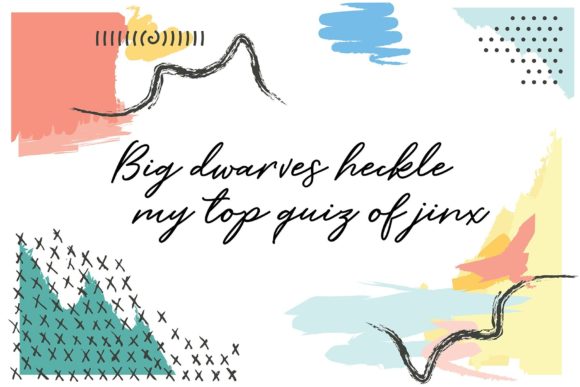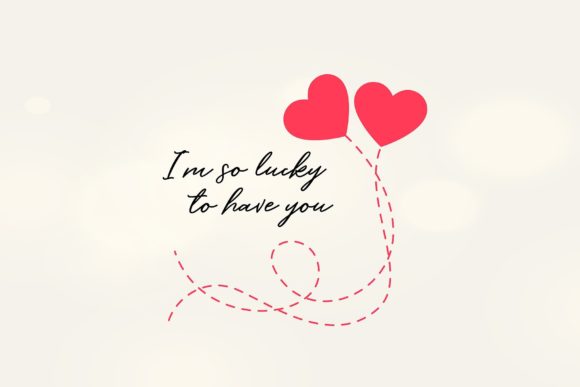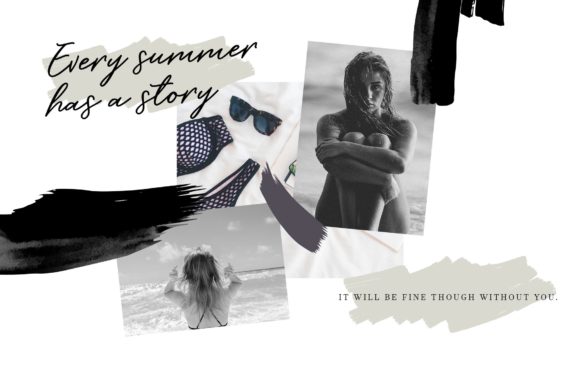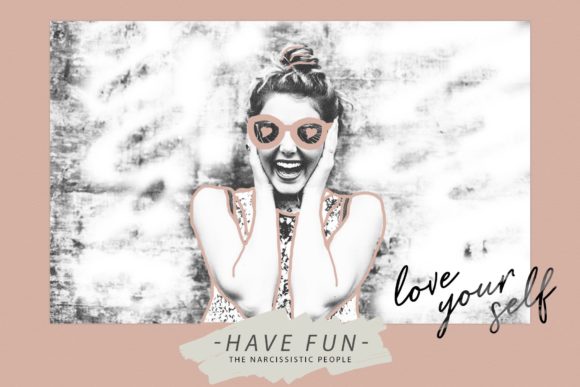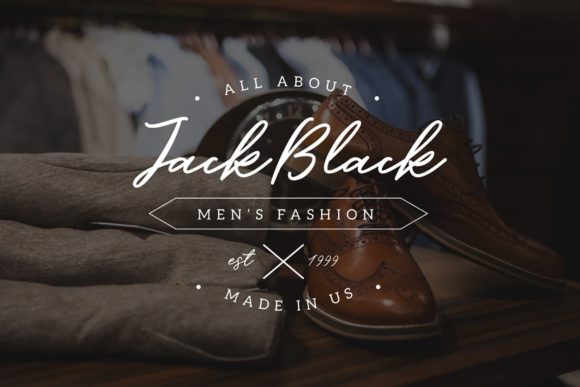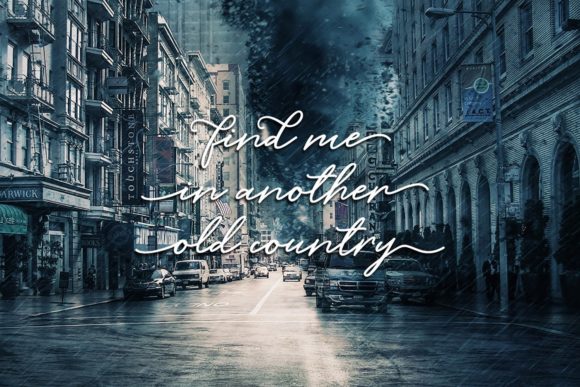
Introducing Barbeque Script Font: Elevate Your Designs with Elegance and Class
Are you tired of using the same old fonts in your designs? Look no further than Barbeque Script Font, a lovely and delicate script font that exudes elegance and class. This font was particularly crafted for those who need a beautiful and refreshing look to their designs. Whether you’re a designer, crafter, or DIY enthusiast, Barbeque Script Font is the perfect addition to your font collection.
What Makes Barbeque Script Font Special?
Barbeque Script Font is a unique and sophisticated font that is sure to make your designs stand out. Here are just a few features that make it special:
- Lovely and Delicate: Barbeque Script Font features beautiful, flowing lines that give it a delicate and refined look. Perfect for designs that require a touch of elegance and sophistication.
- Elegant and Classy: This font exudes class and elegance, making it perfect for designs that require a high-end look and feel.
Uses for Barbeque Script Font
Barbeque Script Font is a versatile font that can be used in a variety of design projects. Here are just a few ideas to get you started:
- Wedding Designs: The elegant and classy look of Barbeque Script Font makes it perfect for wedding designs, such as invitations, programs, and decorations.
- Branding and Packaging: Use Barbeque Script Font to add a touch of sophistication and elegance to your branding and packaging designs.
- Signage and Displays: The beautiful and delicate lines of Barbeque Script Font make it perfect for signage and display designs, such as menu boards, posters, and flyers.
- DIY Projects: Whether you’re making cards, scrapbooking, or working on other DIY projects, Barbeque Script Font is a great addition to your font collection.
Tips for Using Barbeque Script Font
Here are a few tips for using Barbeque Script Font in your designs:
- Pair it with Other Fonts: Barbeque Script Font looks great when paired with other fonts, such as sans-serif fonts or bold script fonts. Experiment with different font combinations to find the perfect look for your design.
- Use it for Headlines and Titles: The elegant and classy look of Barbeque Script Font makes it perfect for headlines and titles. Use it to add a touch of sophistication to your design.
- Experiment with Swashes and Glyphs: With PUA encoding, you can access all glyphs and swashes with ease. Experiment with different swashes and glyphs to add a unique touch to your design.